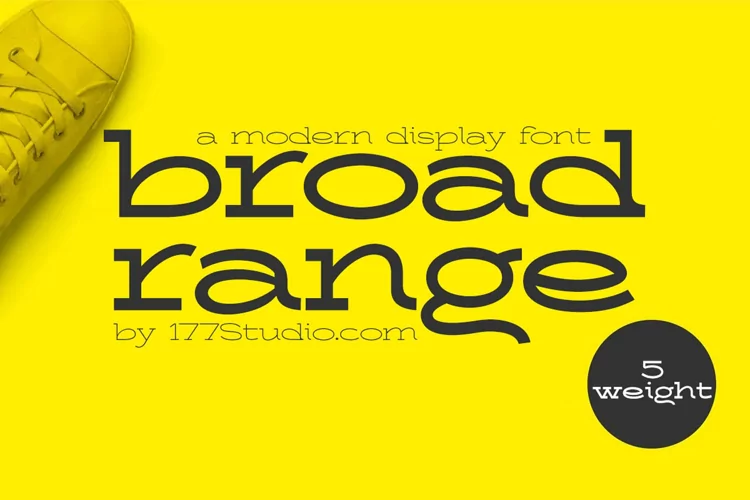
Broad Range Font is a normal serif family of 5 fonts. With a modern style or neo-grotesque, it's has balanced proportions in every letter, and it’s clean, minimal and cool. The various weights provide a variety of options for determining the best typographic color for your project. This is an unrivaled sans serif for differentiating your headlines, branding visual identity, poster, logo, magazines, and so on.